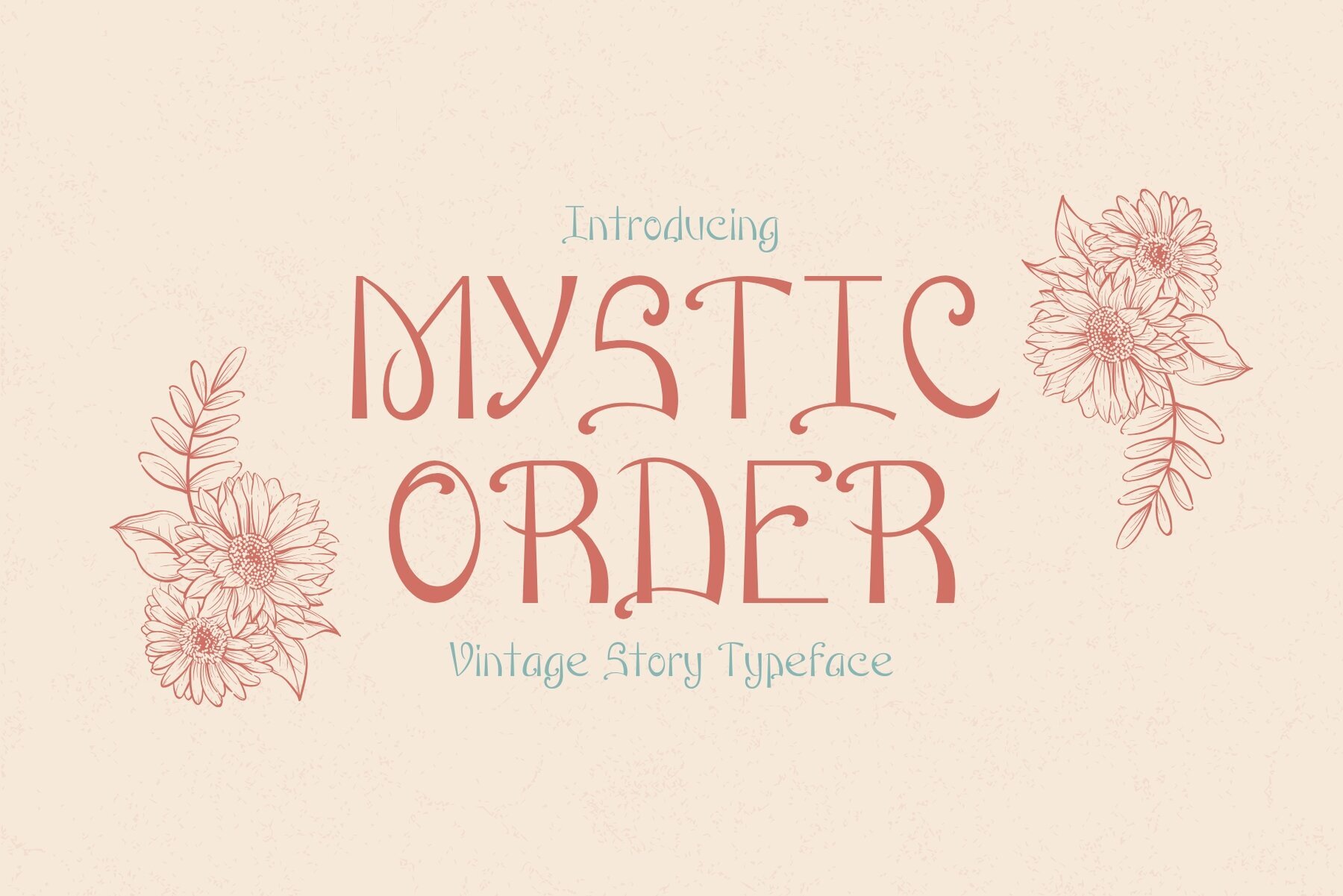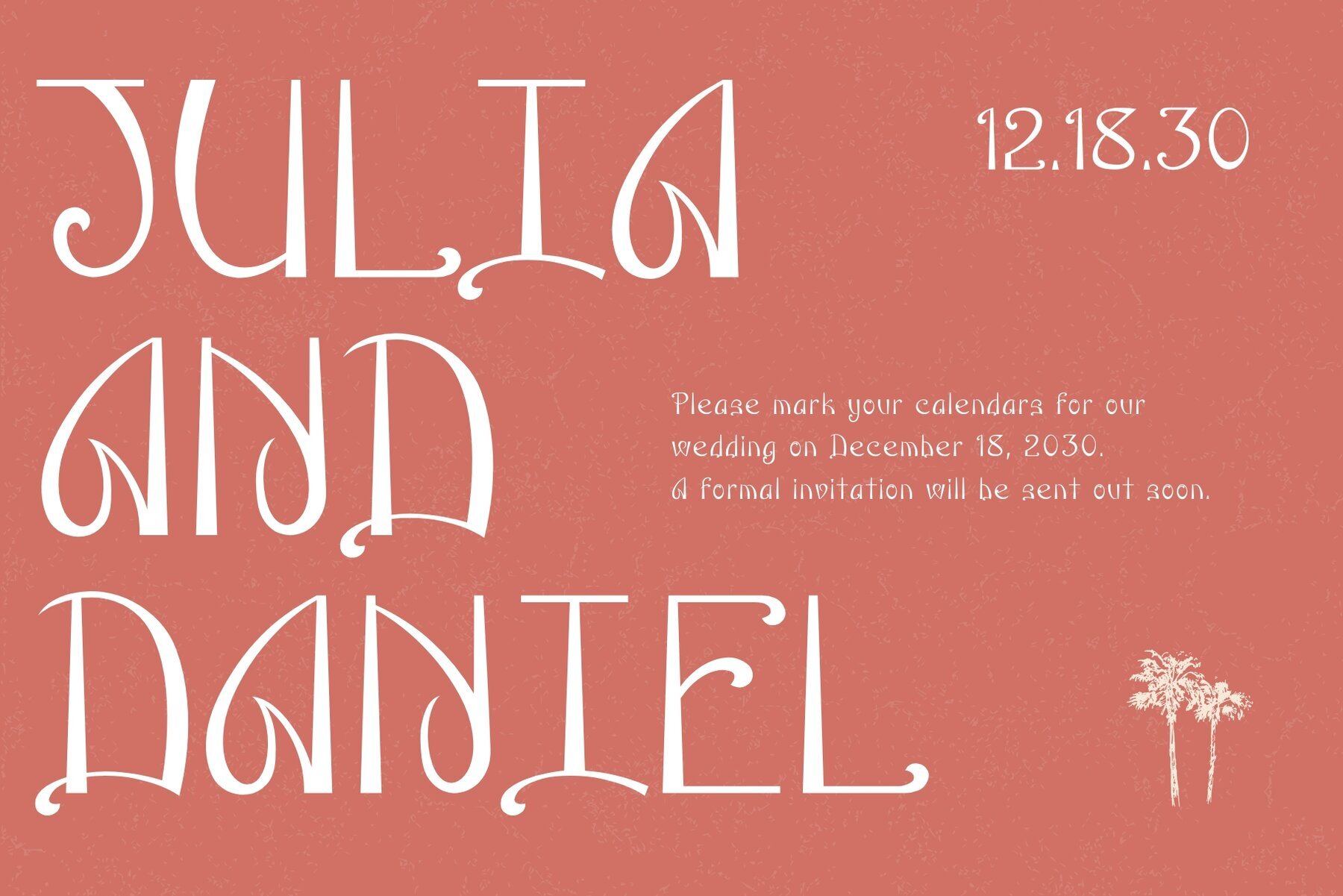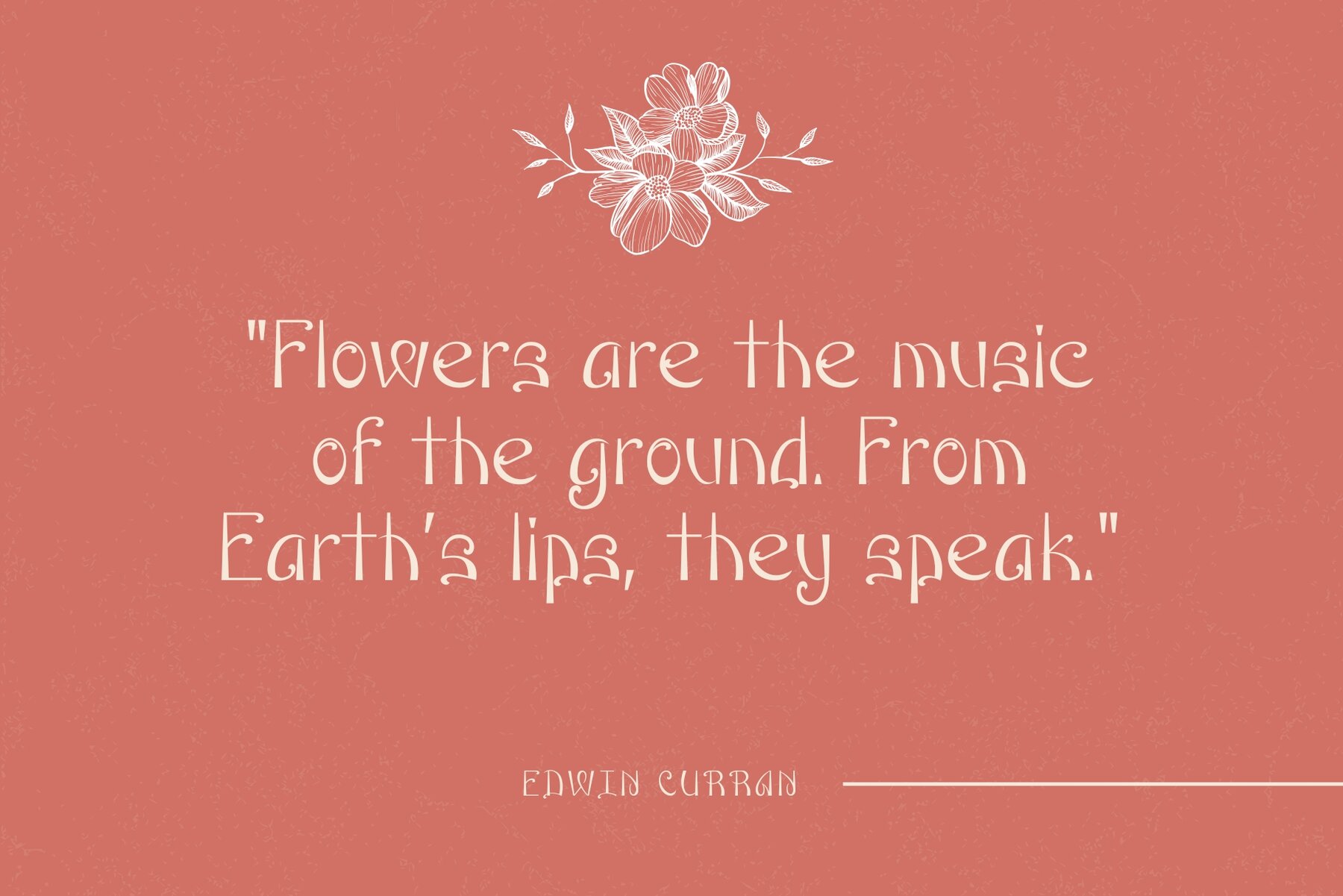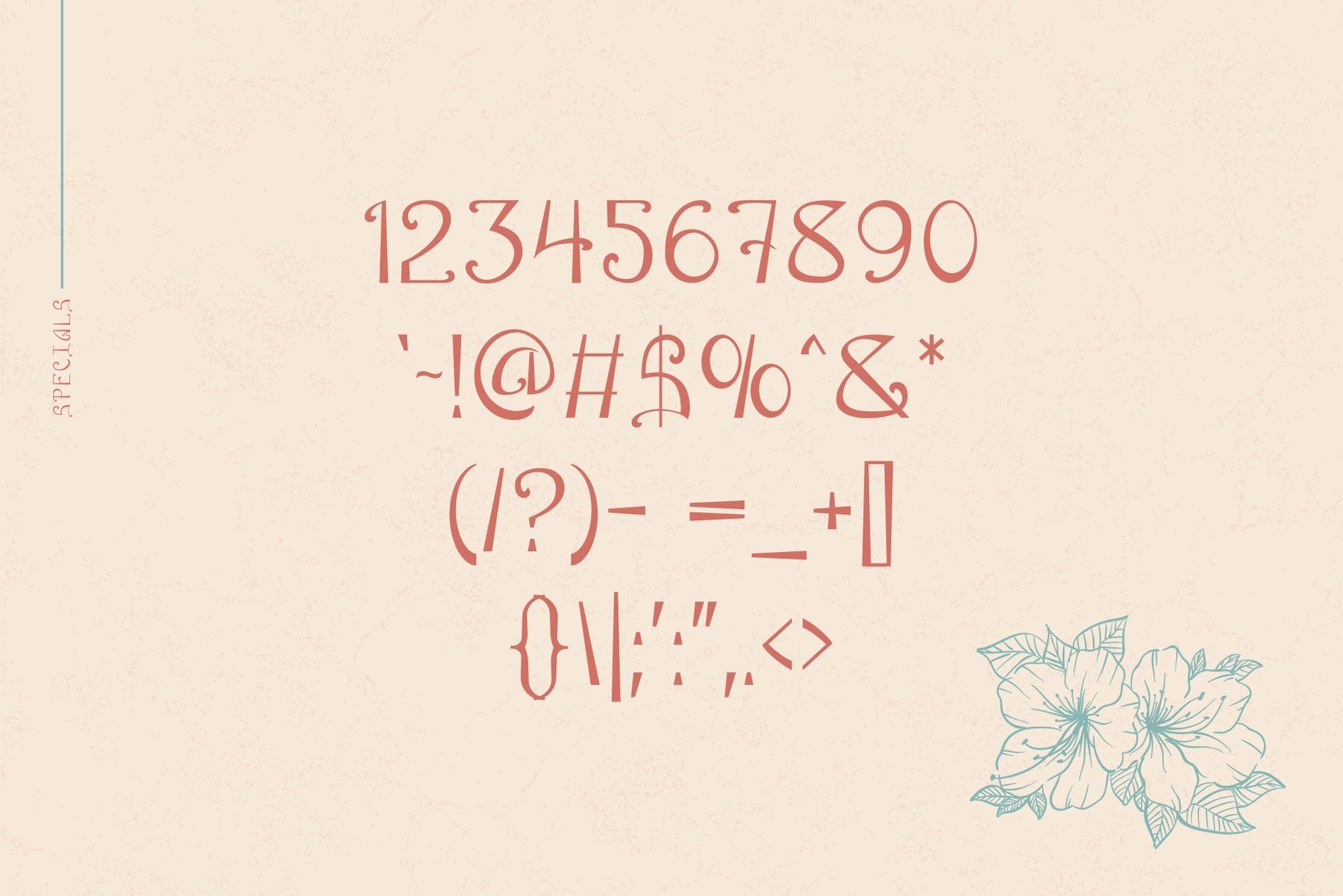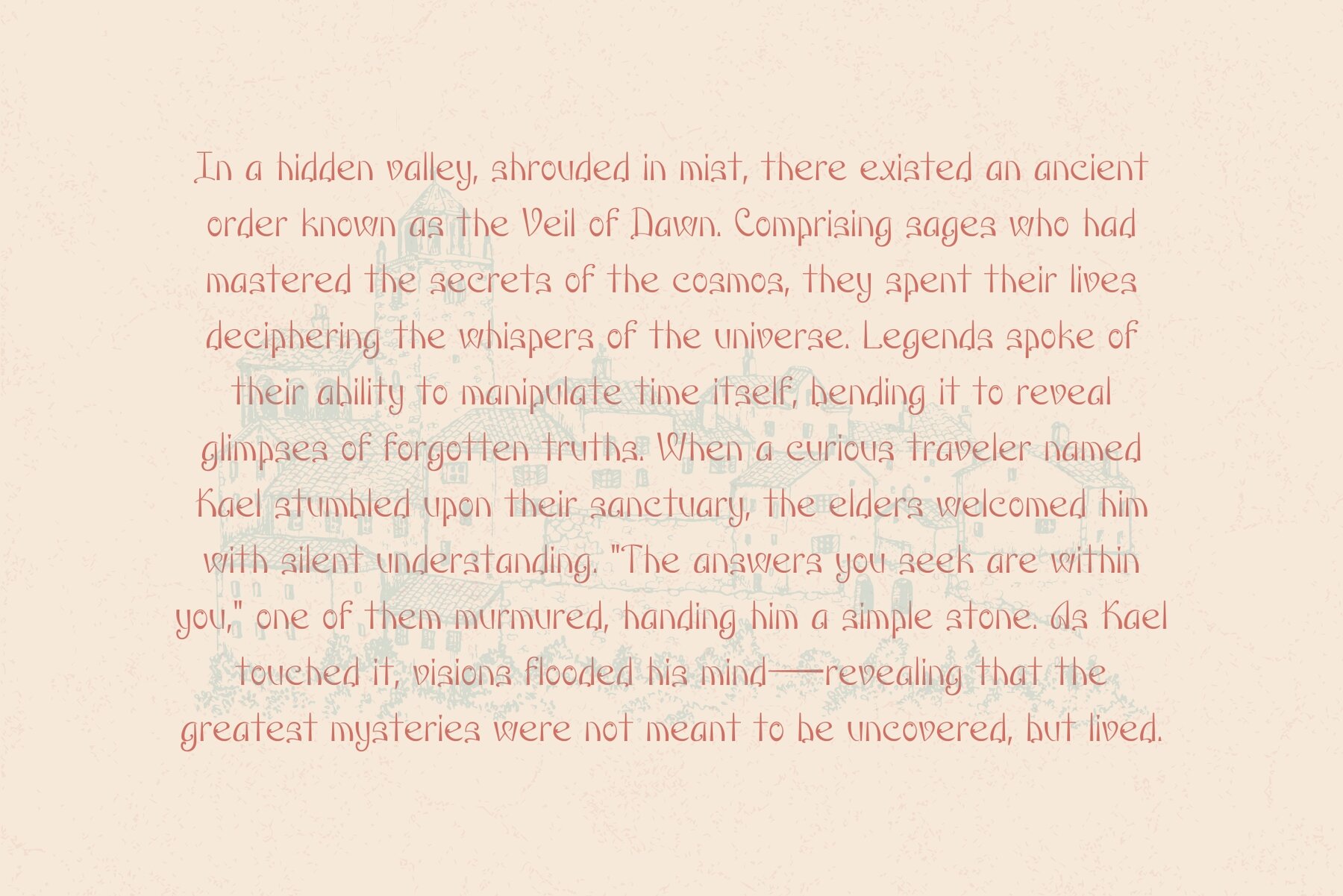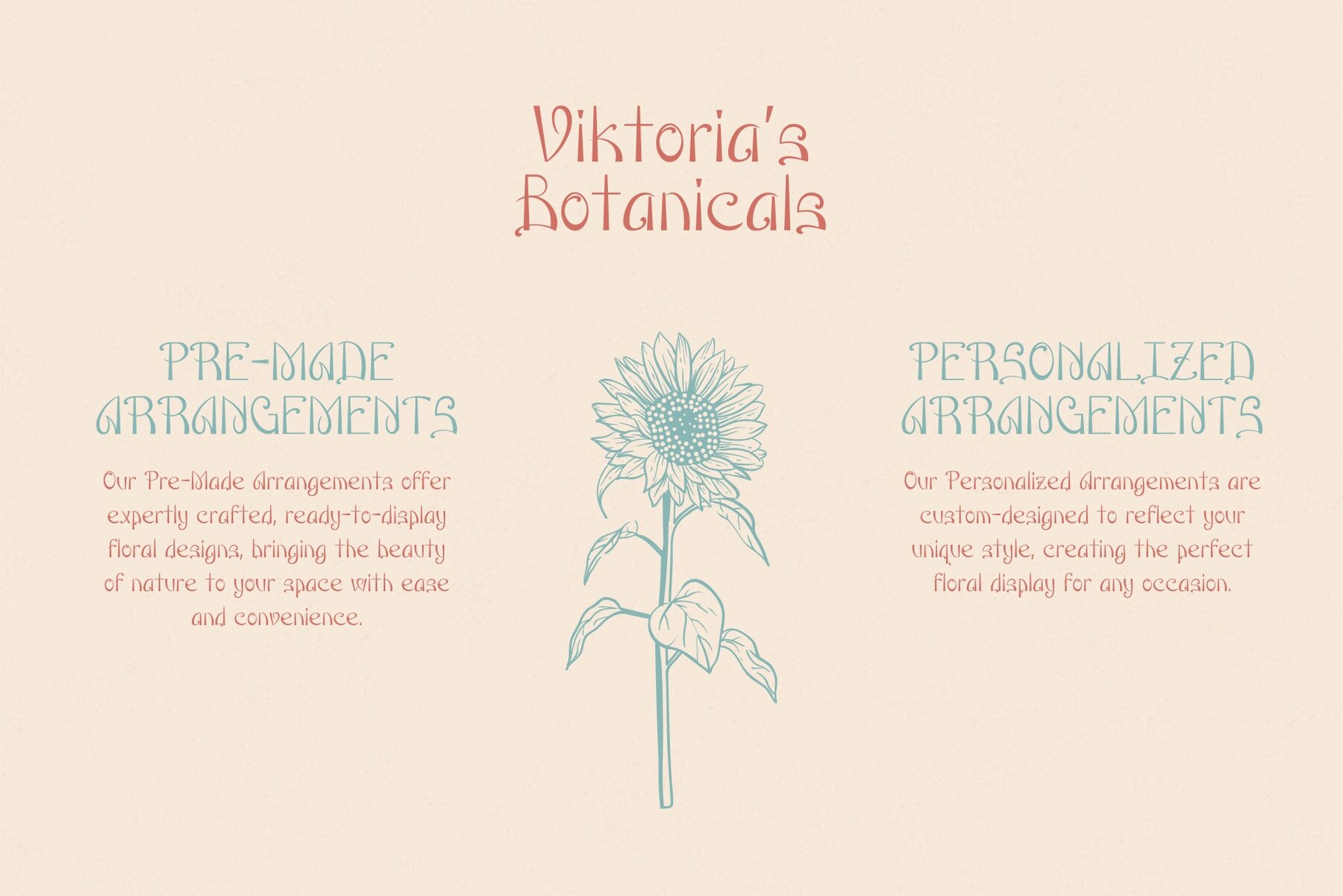
Mystic Order Font
Mystic Order
Embark on a journey of mystery and allure with Mystic Order, a striking antique calligraphy typeface that captures the timeless elegance of handwritten manuscripts. Ideal for novels, stories, and projects with an Old English flair, this font exudes sophistication and intrigue. Use it to design logos, wedding invitations, or packaging, and imbue your projects with a vintage charm that transforms them into artistic masterpieces. Its graceful strokes and intricate details encapsulate the essence of a bygone era, making it a must-have for any designer's collection. Discover the magic embedded in every letter and enchant your designs with Mystic Order.Mystic Order Typeface